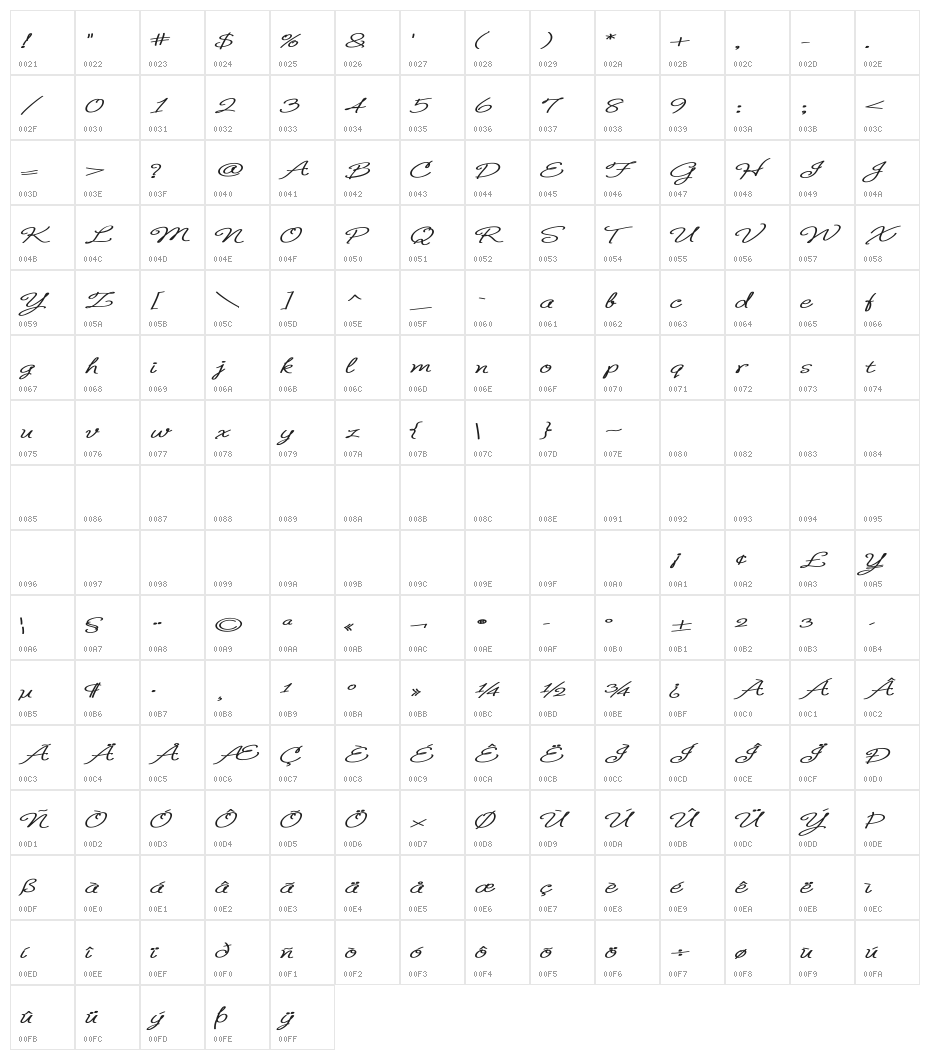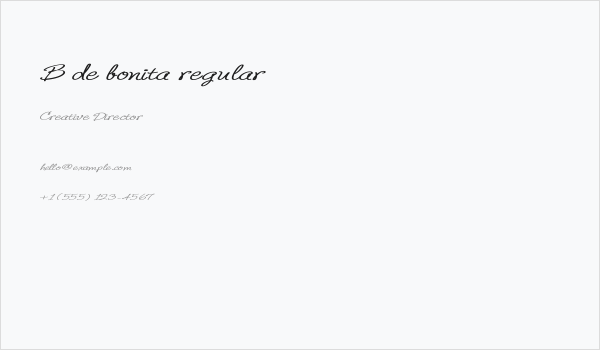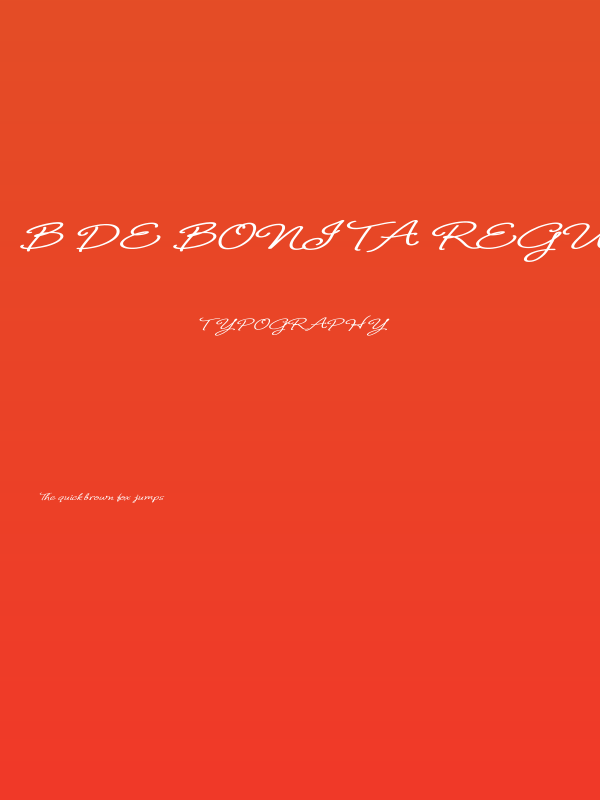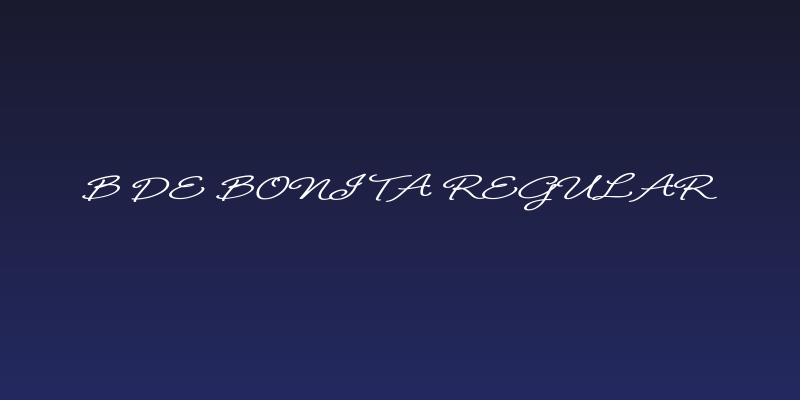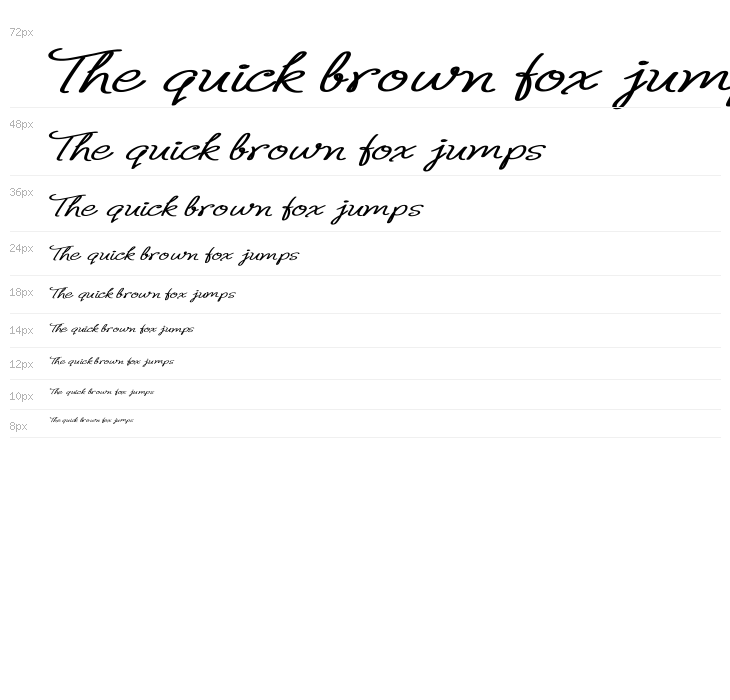
B de bonita regular Font
B de bonita regular Description
This elegant script font features a flowing, cursive style with smooth, connected strokes that give it a handwritten appearance. The uppercase letters are slightly more ornate, with flourishes that add a touch of sophistication, while the lowercase letters maintain a consistent, fluid motion. The numerals and special characters are designed to match the overall aesthetic, ensuring a cohesive look across all text elements. This font's graceful curves and balanced proportions make it suitable for projects that require a personal, yet refined touch.
| Proposed Projects | Ideal for wedding invitations, greeting cards, branding, and elegant packaging designs. |